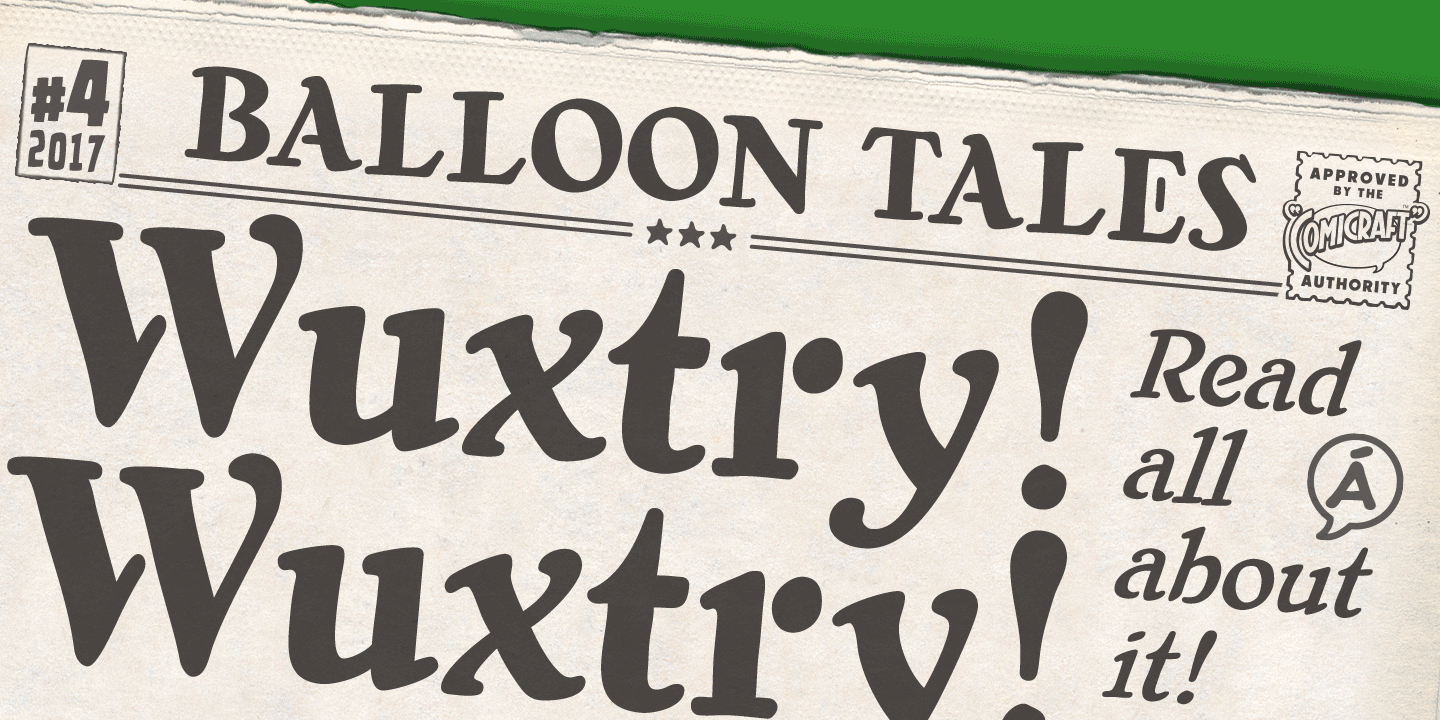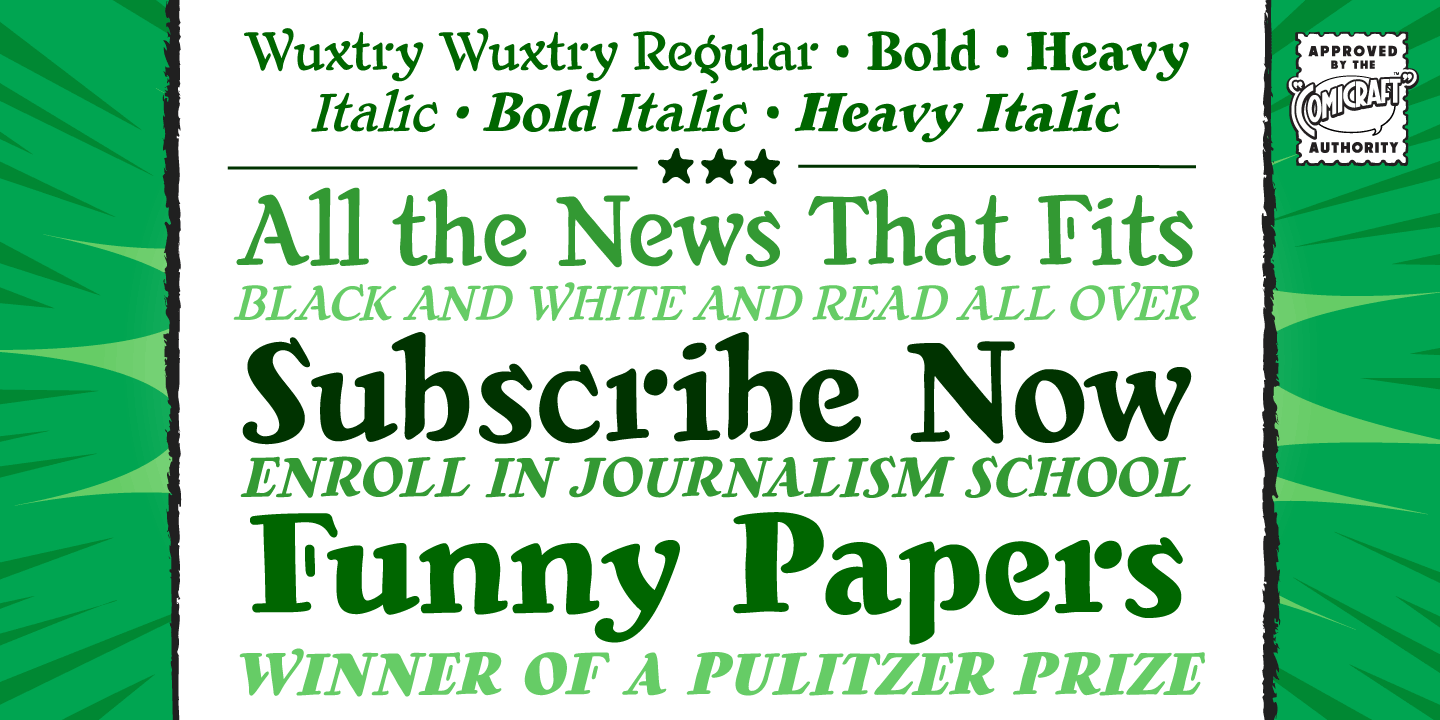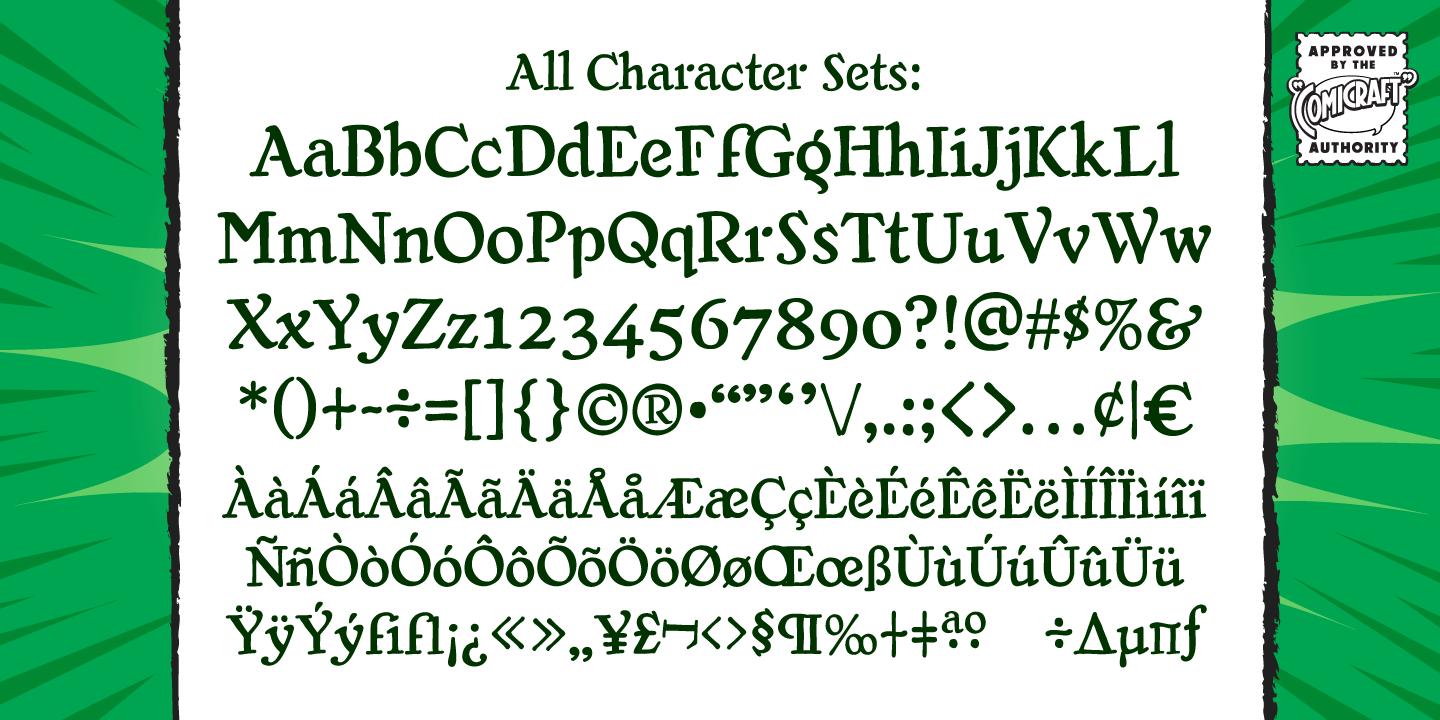
About the Wuxtry Wuxtry Font
About Wuxtry Wuxtry Font Family Oyez! Oyez! Oyez! All citizens having business before the Honorable, the Supreme Court of the Comicraft Authority, are admonished to draw near and give their attention, for Wuxtry! is now kerning.
Tempered and tested to tackle typography in troubled times, this companion to Extra! Extra! affords each and every proclamation, declaration and attestation with the air and veracity of New England Newsies in the 1900s! Designers: John RoshellPublisher: ComicraftFoundry: ComicraftDesign Owner: ComicraftMyFonts debut: May 9, 2018 Wuxtry Wuxtry